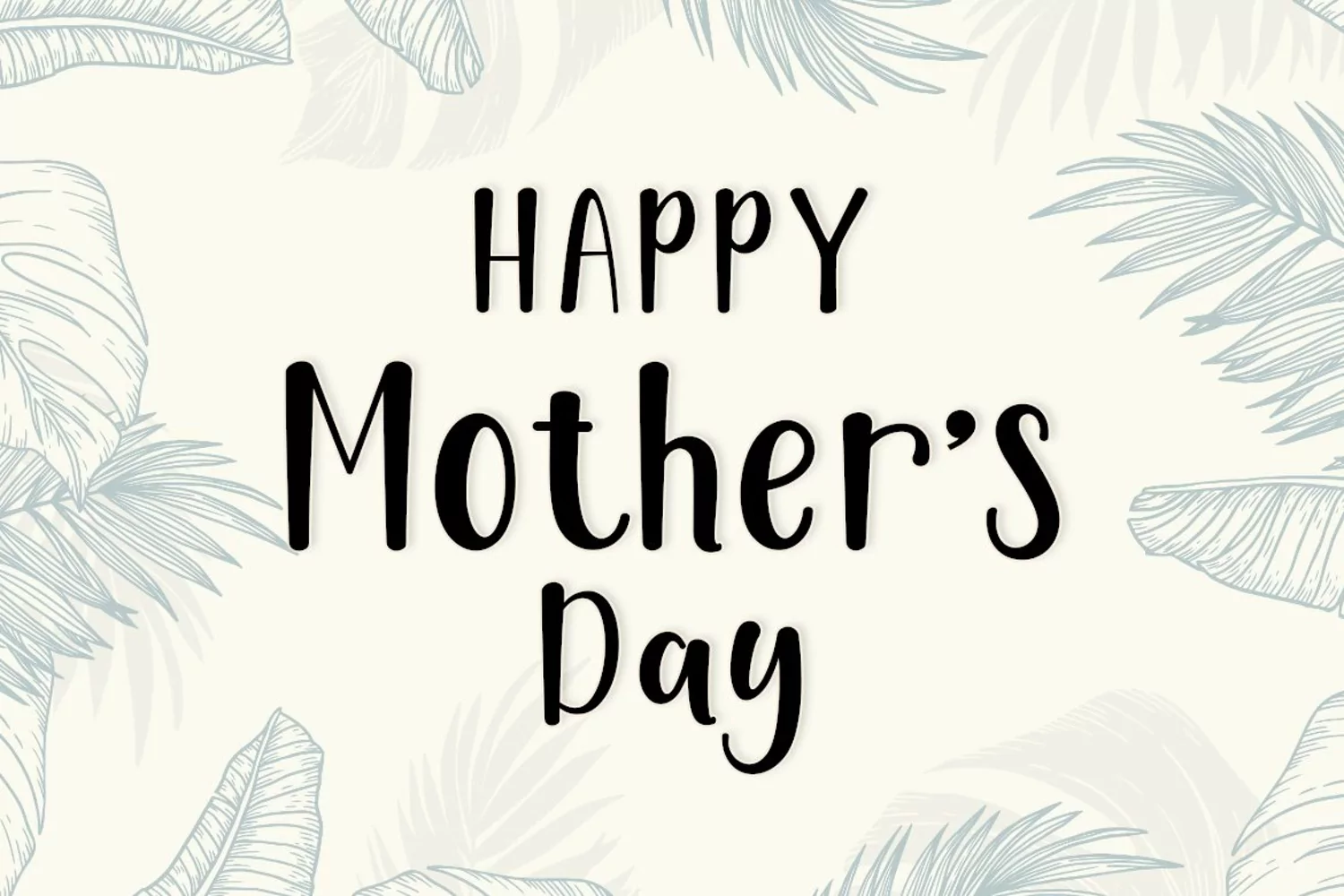
Fabulous Script
Font Branding come with masculine themes. It matches applies in some designs such as the logotype, brand, packaging, quotes, music poster, t-shirt, cover book and more custom design. The features uppercase, lowercase, numeral, punctuation & symbol, multilingual support.